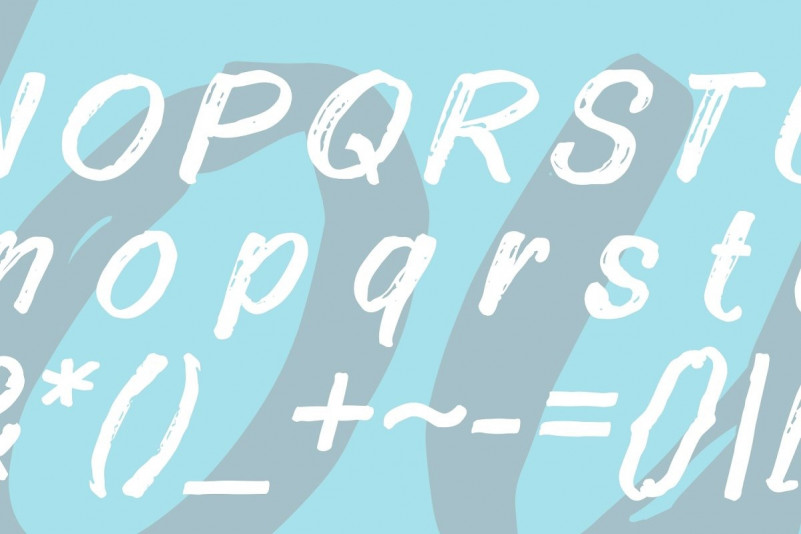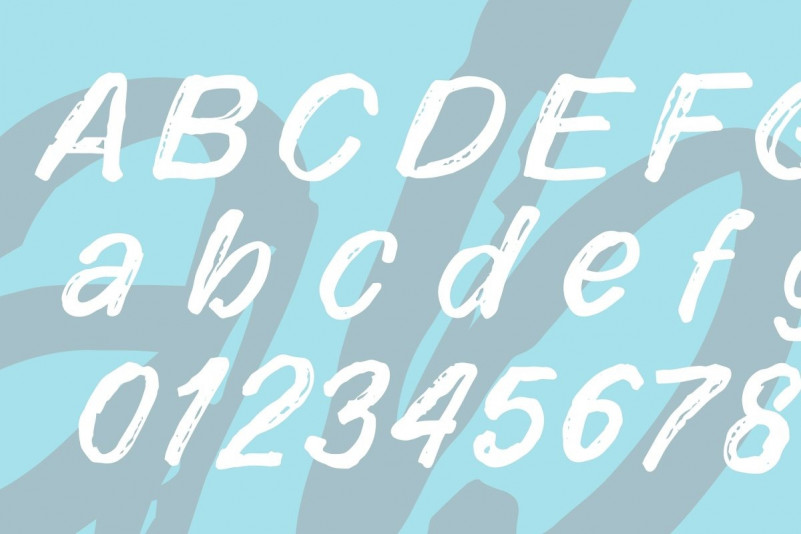
Lazyday Handwritten Font
Lazyday is a lovely and incredibly unique handwritten font. Fall in love with its incredibly versatile style and use it to create gorgeous wedding invitations, beautiful stationary art, eye-catching social media posts, and much more!